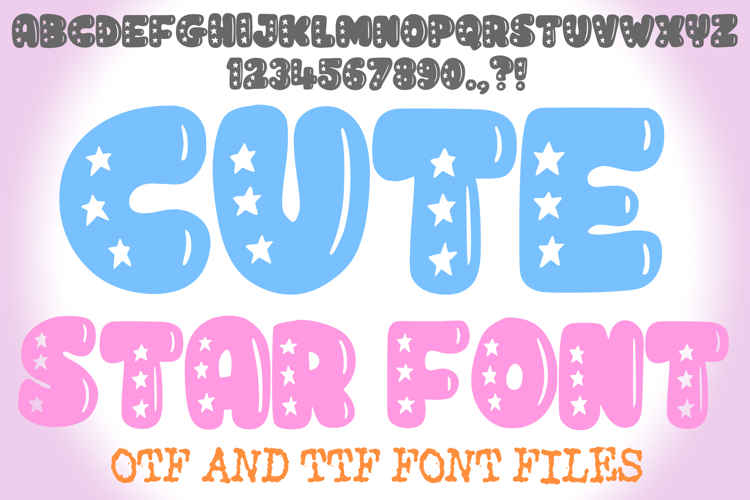
Cute Star Handwriting Alphabet Lettering ABC Text Font OTF
Make your designs twinkle and shine with Cute Star Font! This absolutely adorable typeface is bursting with playful charm, featuring bold, bubbly letterforms delightfully filled with scattered stars. It's more than just a font; it's an instant dose of joy and magic, perfect for projects that need a touch of whimsical cuteness and an undeniable sparkle!
Each character in Cute Star Font is crafted with a charming, rounded outline, and its interior glows with a constellation of cute little stars. This unique and enchanting visual effect makes it an ideal choice for children's books, nursery decor, celestial-themed events, playful branding, party invitations, or any design calling for a unique blend of sweetness and wonder.
Whether you're creating lively event promotions, designing adventurous product packaging, crafting cheerful social media posts, or adding a magical touch to digital art, this font will bring an undeniable sense of fun, originality, and a vibrant, dreamy aesthetic to your work. Its clear yet bubbly forms ensure readability while delivering a memorable visual experience.
If you're looking to infuse your designs with a sense of playful wonder, charming cuteness, and an undeniable touch of magic, Cute Star Font is your ultimate tool. Wish upon a star and let your creativity shine!